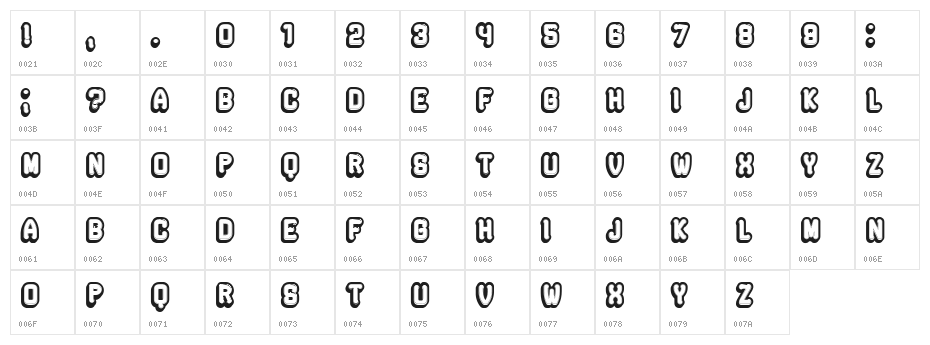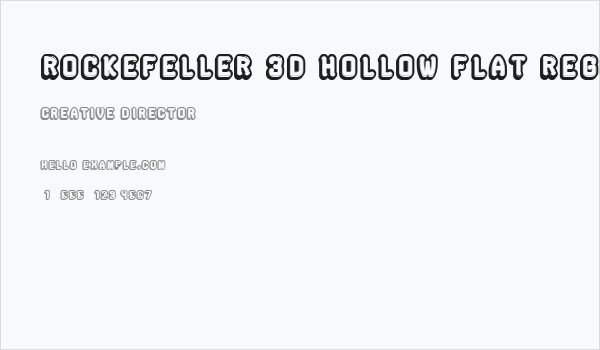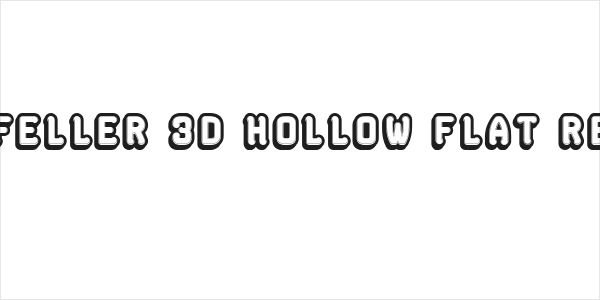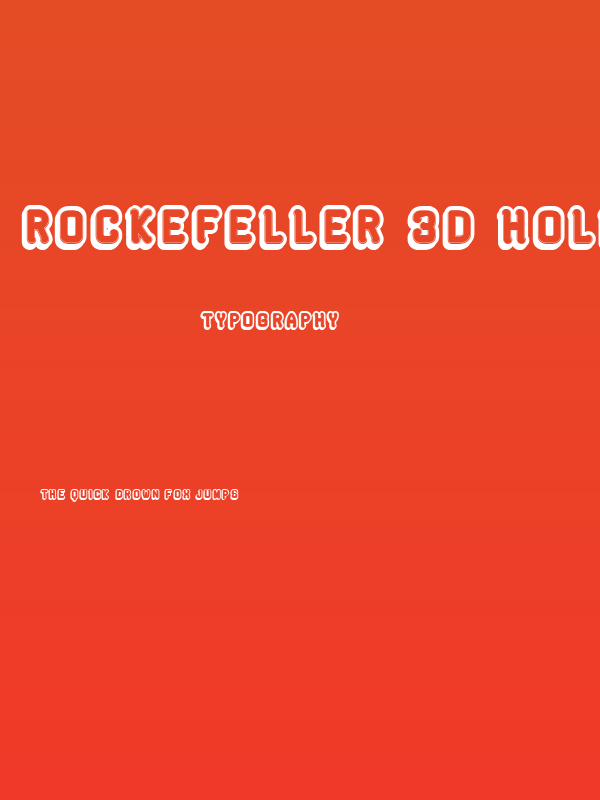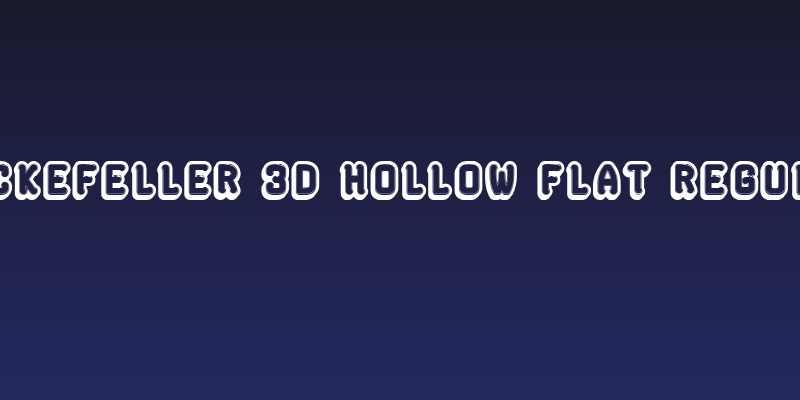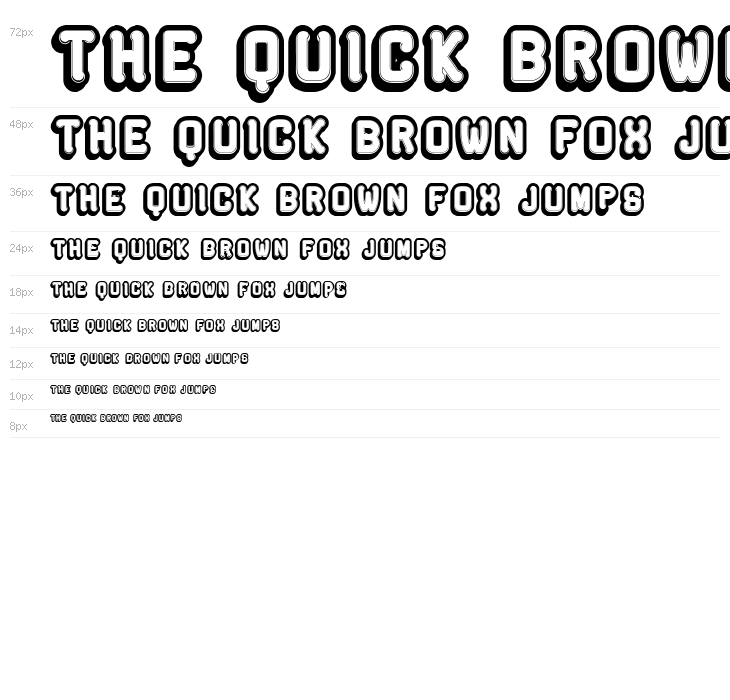
Rockefeller 3D Hollow Flat Regular Font
Rockefeller 3D Hollow Flat Regular Description
This font features a bold, three-dimensional hollow design with a flat appearance. The characters are outlined with a thick black border, creating a striking contrast against the white interior. The style is playful and eye-catching, making it ideal for projects that require a strong visual impact. The uppercase and lowercase letters maintain a consistent style, with rounded edges that add a friendly and approachable feel. The numbers and special characters are designed to match the overall aesthetic, ensuring a cohesive look across all elements.
| Proposed Projects | Ideal for posters, headlines, logos, and any design needing a bold statement. |